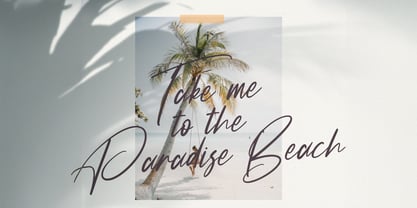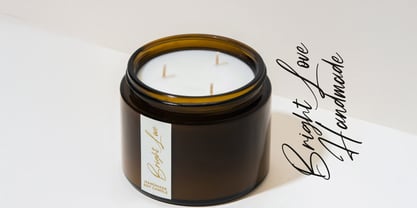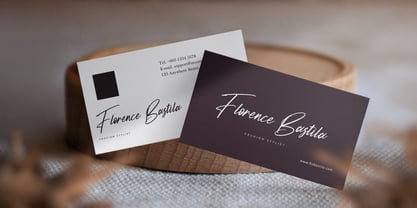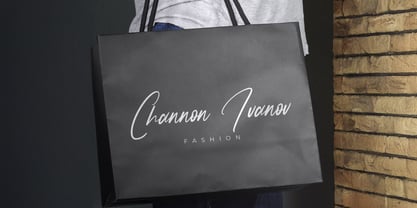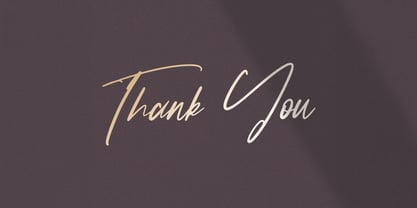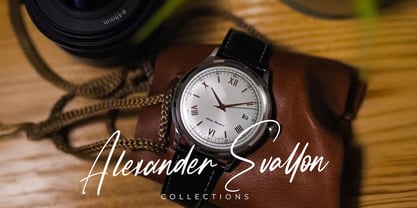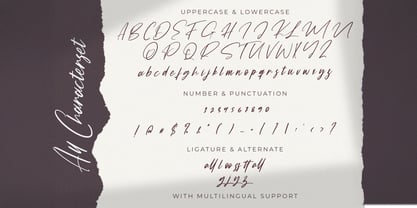
Fany Harlley
by Stringlabs Creative Studio
The Fany Harlley Font Family was designed by Virgiawan Listanto and published by Stringlabs Creative Studio. Fany Harlley contains 1 styles. More about this family
Fany Harlley is a charming handwritten font that radiates warmth, elegance, and personality. With its smooth curves and delicate strokes, this font captures the natural flow of handwriting perfect for adding a personal and stylish touch to your designs.
Designers: Virgiawan Listanto
Foundry: Stringlabs Creative Studio